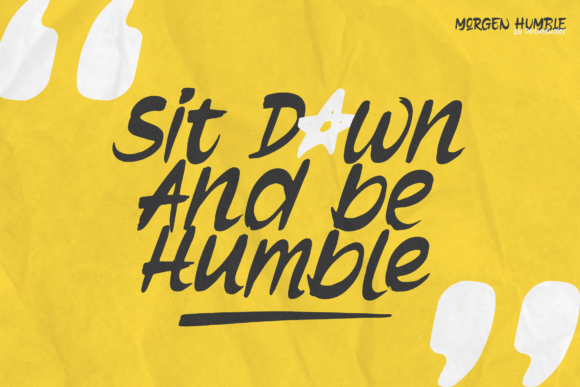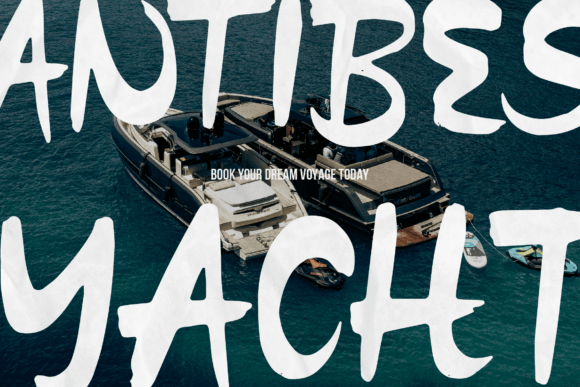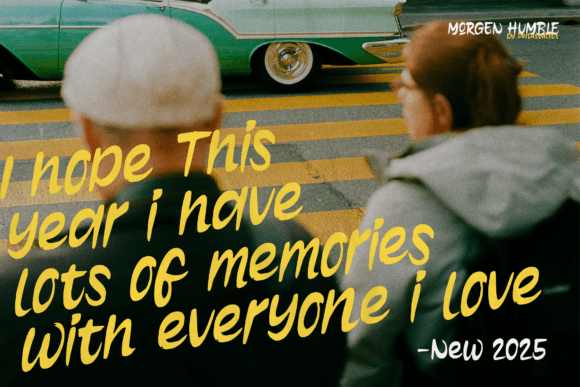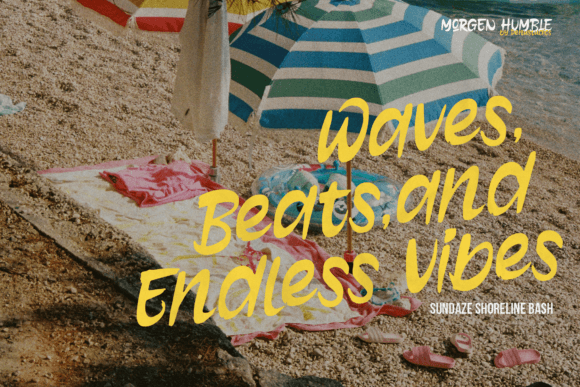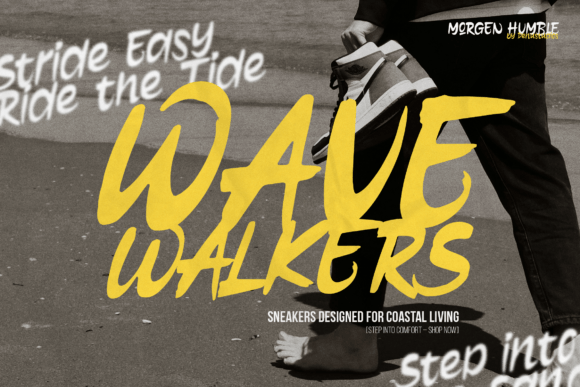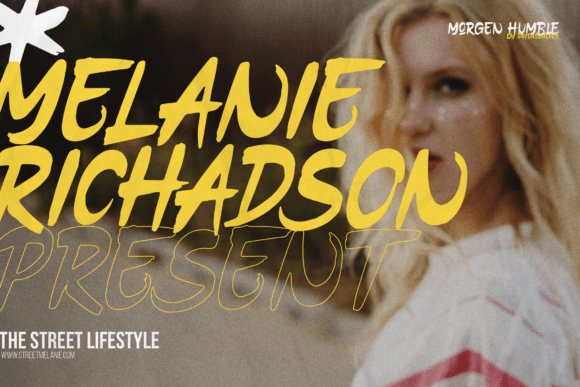
Introduction to Morgen Humble Font
As a designer, there’s nothing quite like the thrill of bringing a creative project to life. The moment when your vision takes shape, and you see your idea in all its glory – it’s a rush like no other. And what’s often the key to making that vision shine? The right font. One that’s bold, stylish, and adds a touch of personality to your design. For those looking to elevate their creative projects, the Morgen Humble Font is a game-changer. With its hand-painted feel and smooth, flowing strokes, this font is perfect for logos, posters, and any design that needs a little extra flair.
Key Features of Morgen Humble Font
- Unique, elegant script font with a humble touch, perfect for adding a personal touch to your design.
- Perfect for use in various design contexts, including logos, invitations, and other creative projects.
Honest Review: Morgen Humble Font
I recently stumbled upon the Morgen Humble Font, a free download that I couldn’t wait to add to my design resource arsenal. At first glance, I was drawn to its unique and elegant aesthetic, perfect for a creative project.
Here are some of the things that work well with the Morgen Humble Font: ✨ It has a high-quality feel, with crisp lines and subtle nuances that make it stand out. ✨ It’s incredibly versatile, suitable for a wide range of design applications. ✨ It’s available for free download, which is a definite bonus for designers on a budget.
However, I did encounter a few limitations: ⚠️ The font is not ideal for large-scale text, as it can become difficult to read. ⚠️ The transparent background option is a bit finicky, and can sometimes produce inconsistent results. ⚠️ The font library is relatively small, so you may not find as many stylistic variations as you would with a paid font.
Overall, I’m impressed with the Morgen Humble Font. While it may have some limitations, its unique style and high-quality feel make it a valuable addition to any designer’s toolkit.
- Perfect for creative projects, marketing materials, and editorial content.
- Highly versatile, suitable for a wide range of design applications.
Tips for Getting the Most Out of Morgen Humble Font
To get the most out of the Morgen Humble Font, experiment with different font sizes, colors, and combinations. Use it in conjunction with other design elements to create visually appealing and creative designs.
The Morgen Humble Font is ideal for use in a variety of creative projects, including social media graphics, presentations, logos, and written content. Its high quality and transparent background feature make it a valuable design resource for designers and non-designers alike.